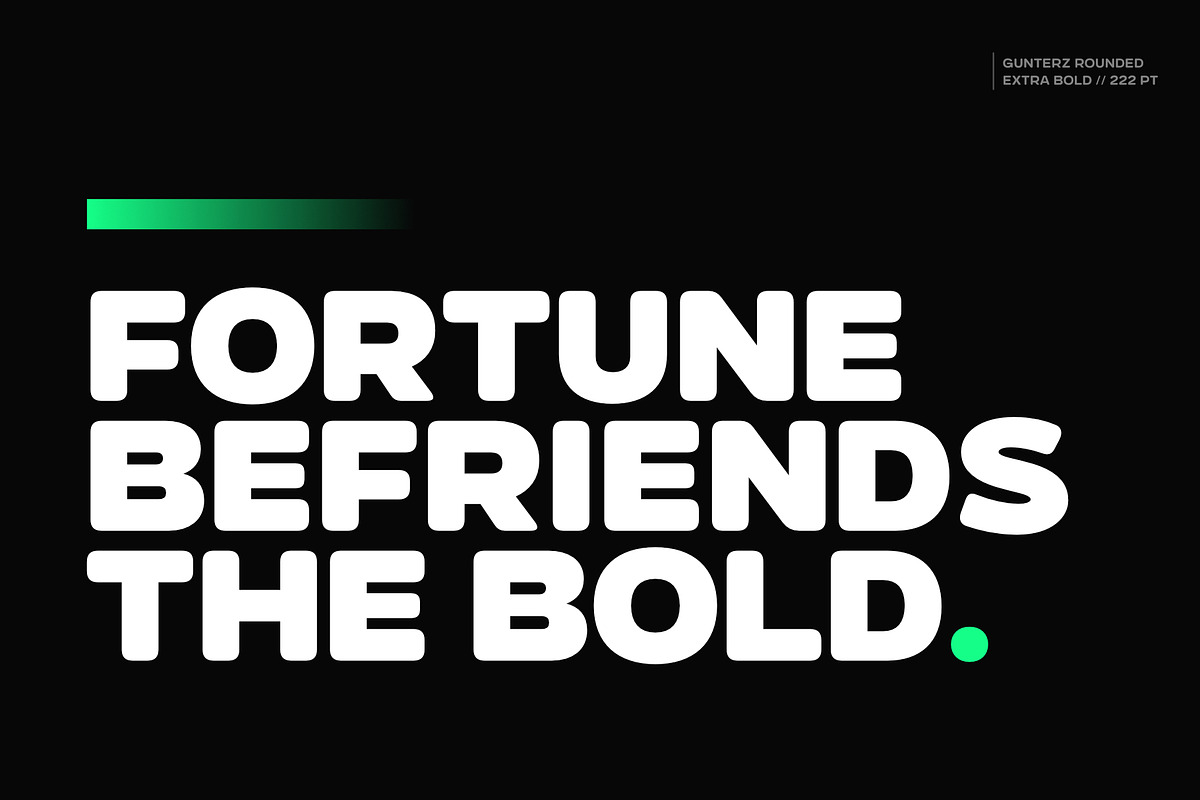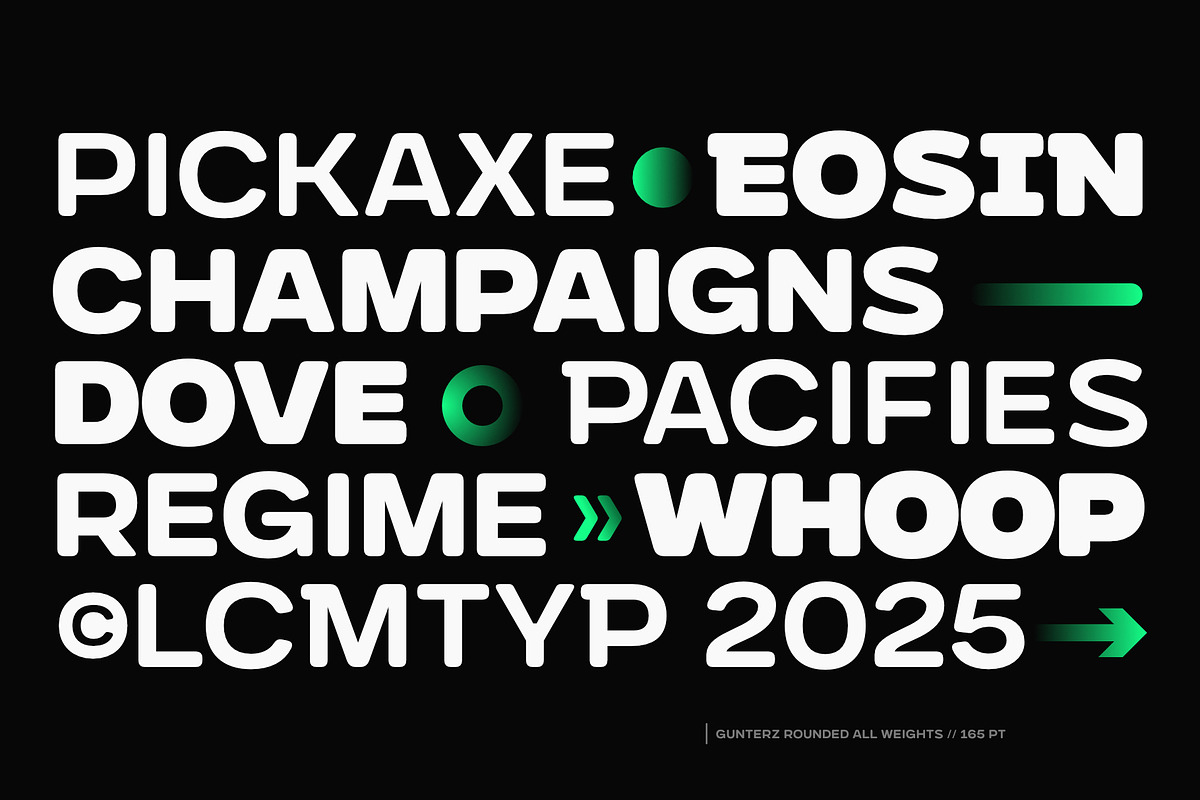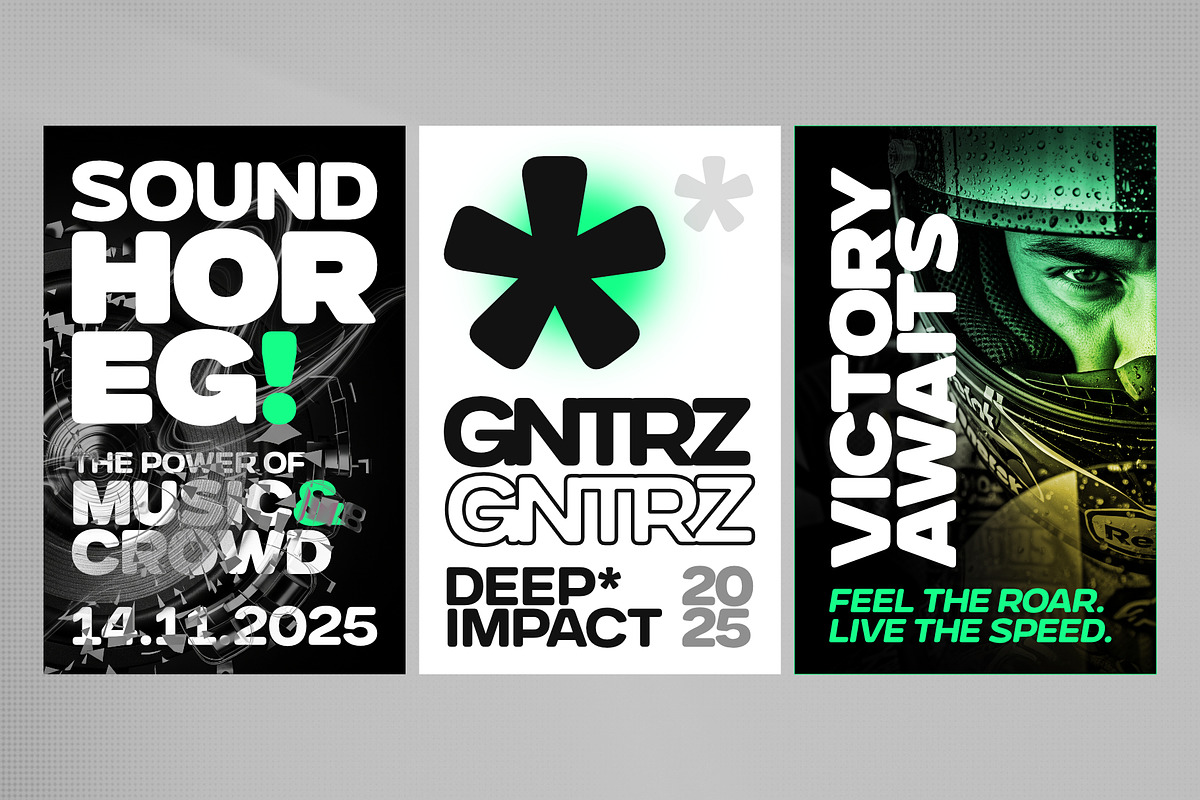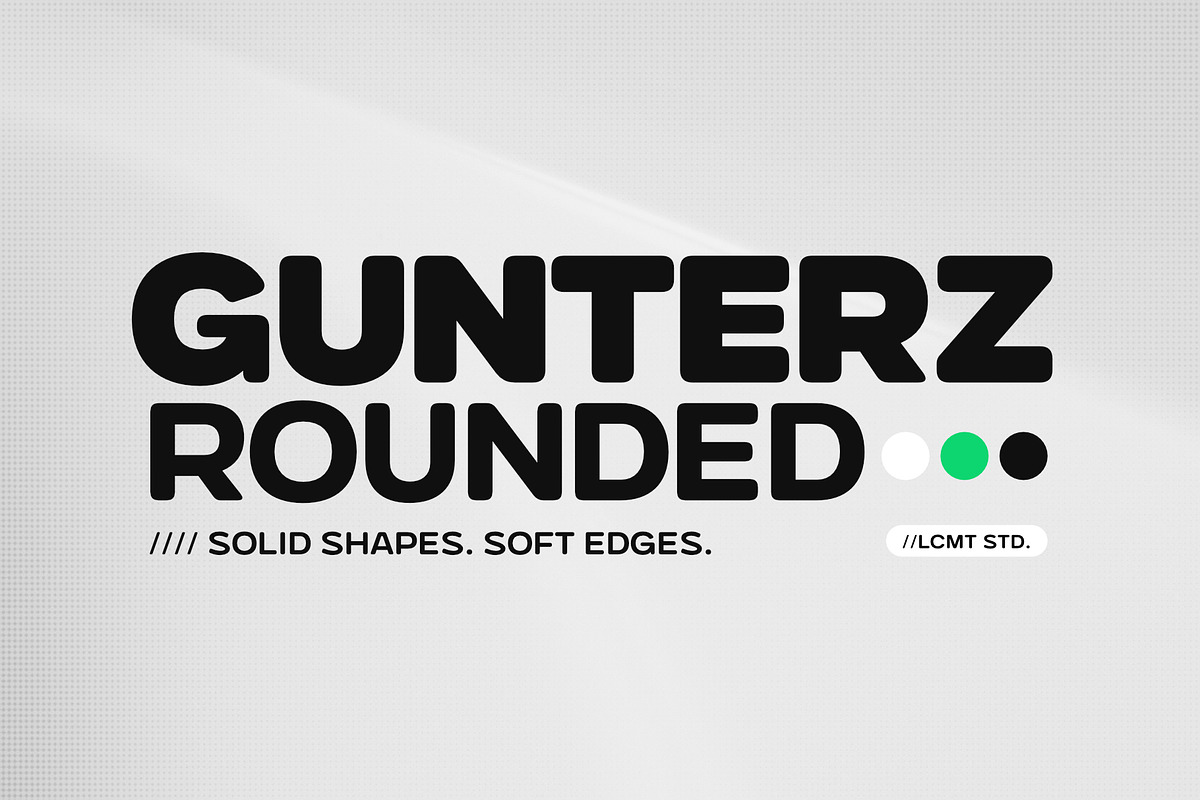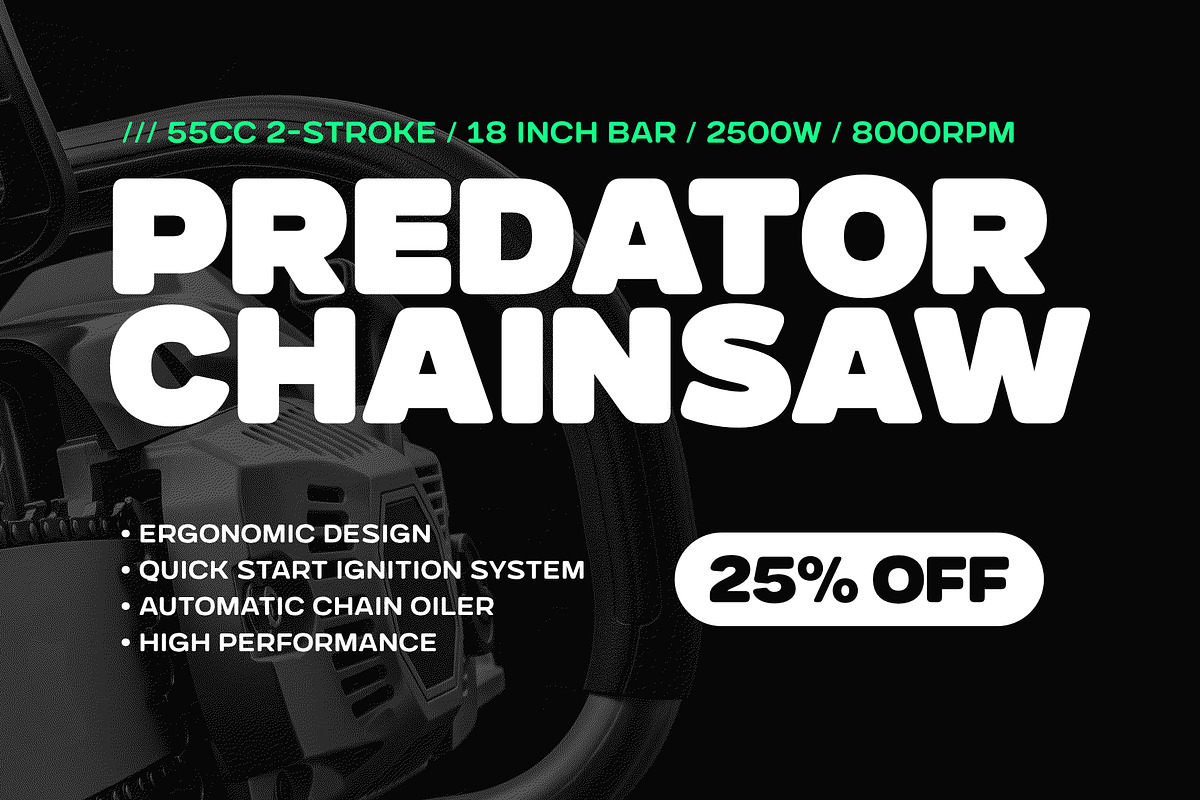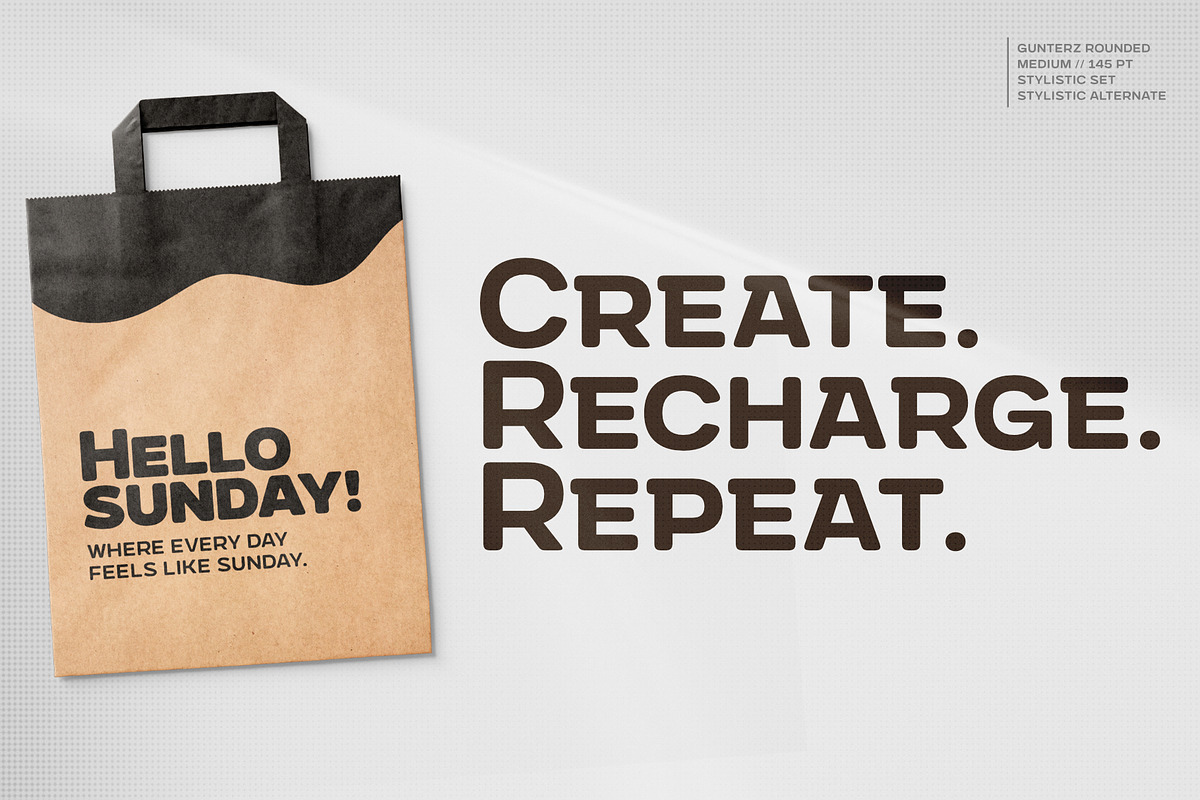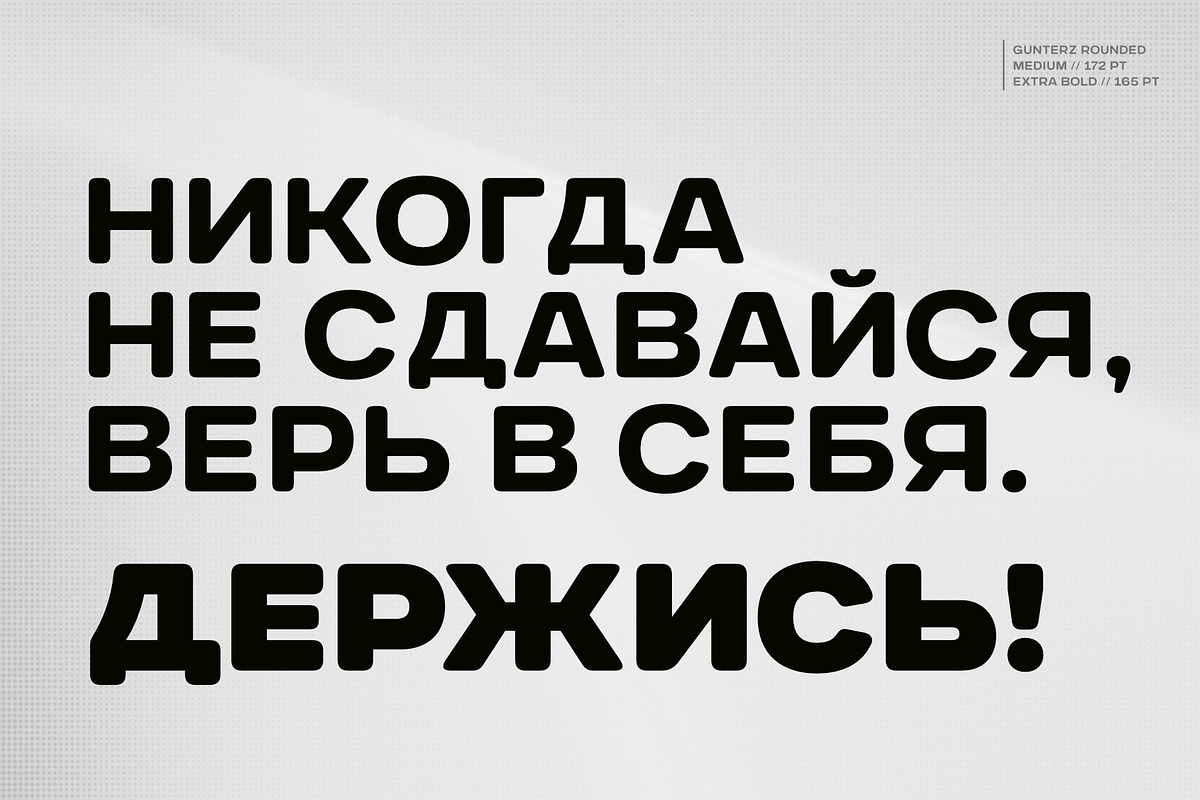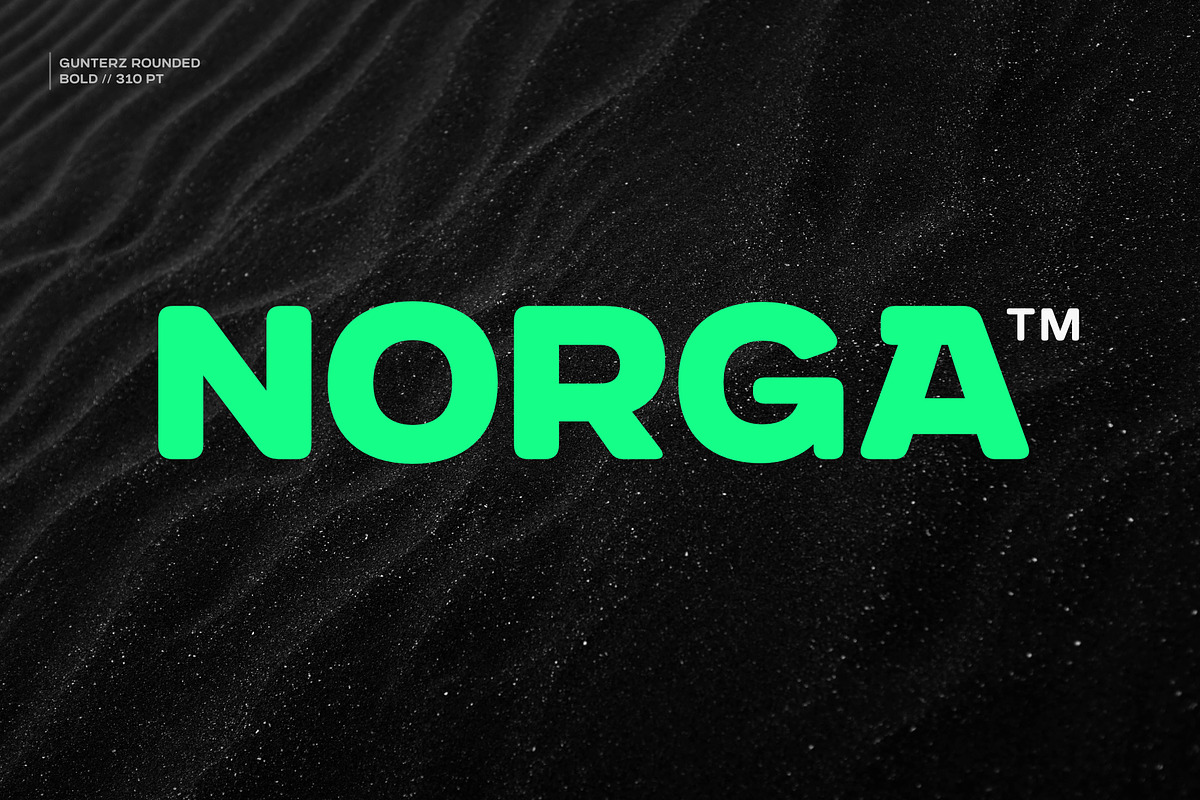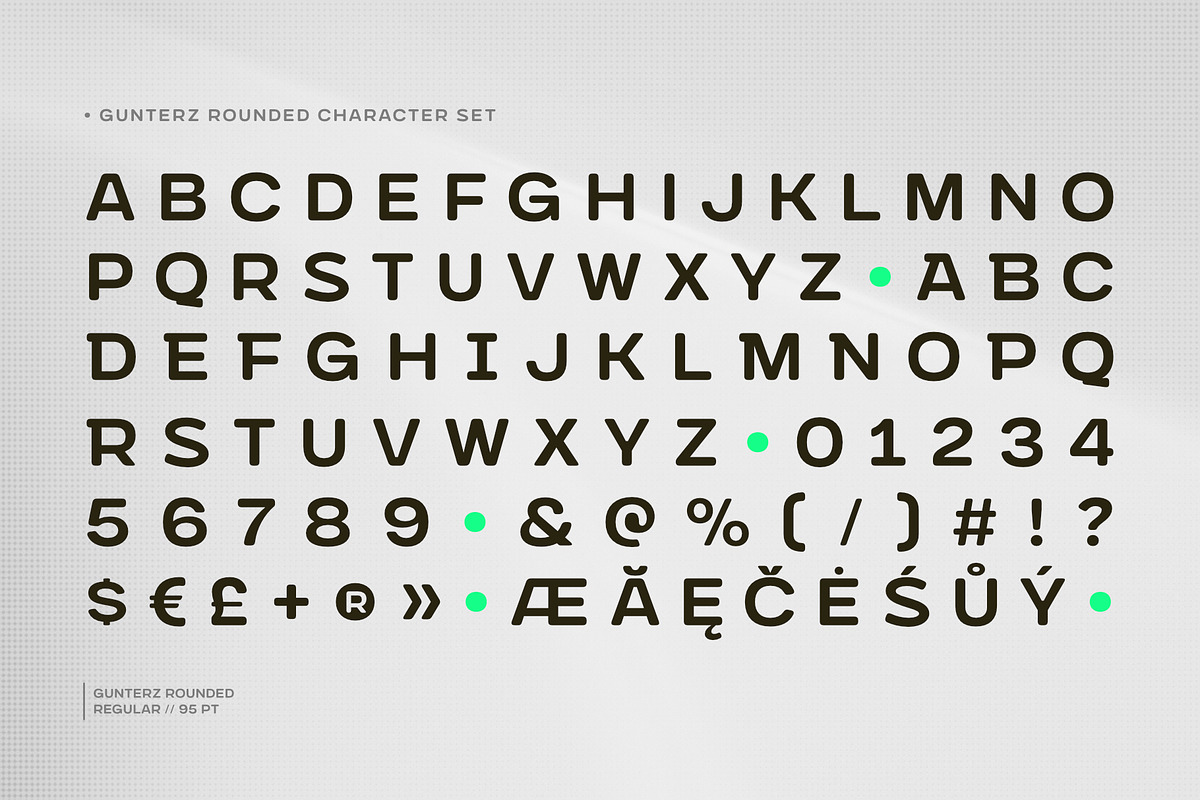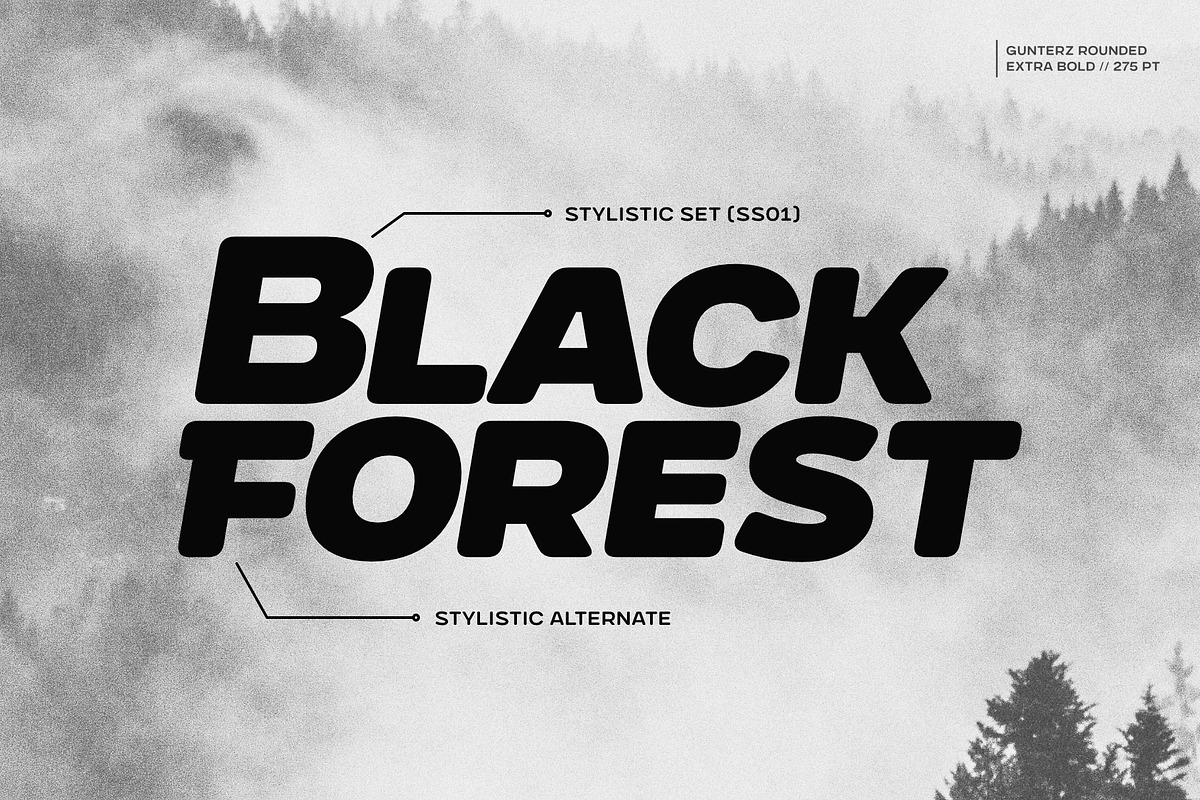
Gunterz Rounded
Introducing Gunterz Rounded, the friendly and modern evolution of our bold all-caps typeface, Gunterz.
This new style retains the powerful presence of the original but features softened corners for a more approachable feel. Gunterz Rounded is perfect for projects needing a strong yet charismatic look, and it comes with the same five weights, matching italics, and useful OpenType features.
Ideal for posters headlines, logos, and packaging, Gunterz Rounded is your go-to choice for a contemporary twist on a classic font.
Gunterz Rounded Complete Family:
- Gunterz Rounded Regular
- Gunterz Rounded Italic
- Gunterz Rounded Medium
- Gunterz Rounded Medium Italic
- Gunterz Rounded Bold
- Gunterz Rounded Bold Italic
- Gunterz Rounded Extra Bold
- Gunterz Rounded Extra Bold Italic
- Gunterz Rounded Black
- Gunterz Rounded Black Italic